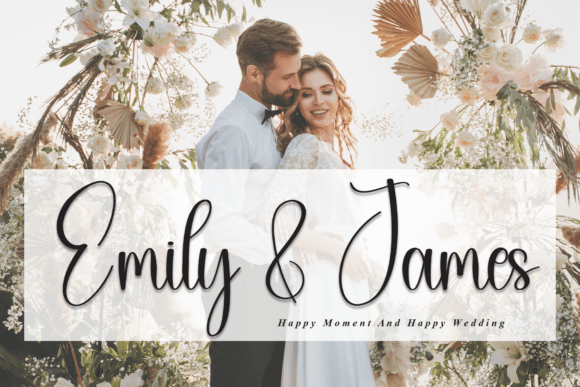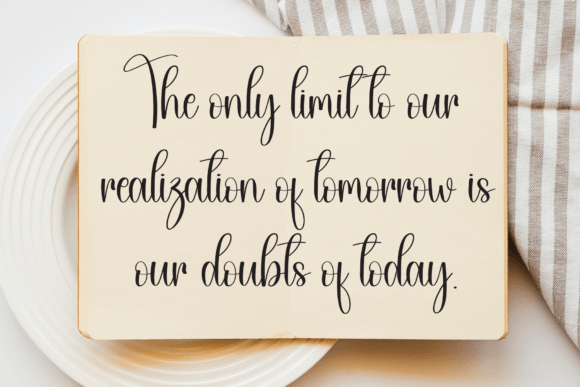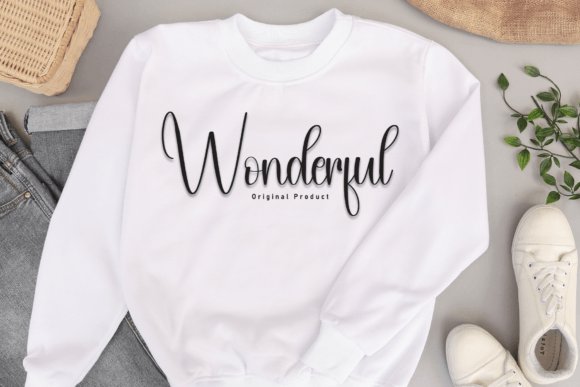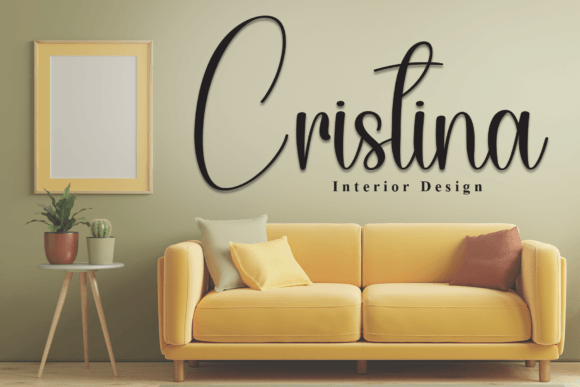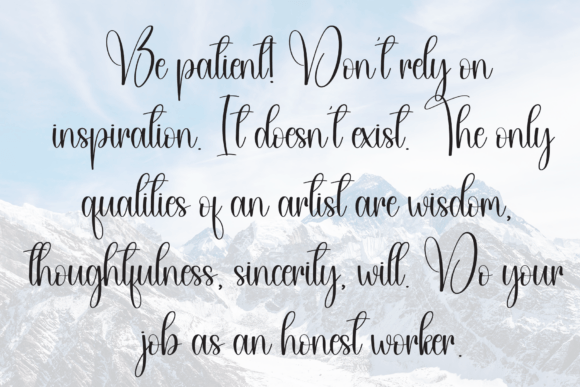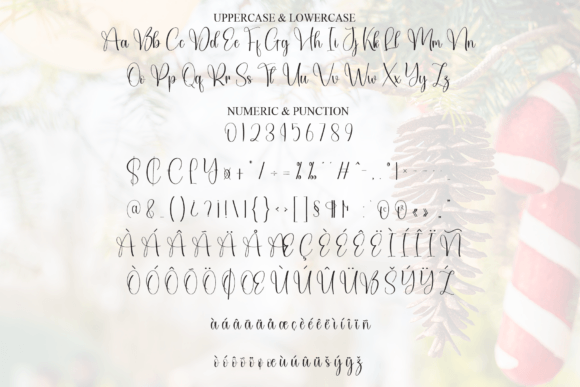
Australia Christmas Font: Add a Warm and Cheerful Touch to Your Holiday Designs
As the holiday season approaches, designers and crafters are on the lookout for the perfect font to add a festive touch to their creations. If you’re looking for a font that embodies the spirit of Christmas, look no further than the Australia Christmas Font. This beautiful, festive script font is perfect for creating holiday designs that are warm, cheerful, and inviting.
What is Australia Christmas Font?
Australia Christmas is a stunning script font that features a joyful, flowing style. The font’s smooth, cursive lettering is perfect for creating holiday designs that feel cozy and intimate. With its elegant, cursive strokes, Australia Christmas Font is ideal for adding a touch of sophistication and whimsy to your holiday creations.
Key Features of Australia Christmas Font
- Festive and Joyful: Australia Christmas Font is designed to capture the spirit of the holiday season. Its joyful, flowing style is perfect for creating designs that feel festive and fun.
- Smooth and Cursive: The font features smooth, cursive lettering that adds a touch of elegance and sophistication to your designs.
- Perfect for Holiday Designs: Australia Christmas Font is ideal for creating holiday designs, including invitations, cards, decorations, and more.
Uses for Australia Christmas Font
Australia Christmas Font is a versatile font that can be used for a wide range of holiday designs. Here are some ideas to get you started:
- Holiday Invitations: Use Australia Christmas Font to create beautiful, festive invitations for your holiday parties and gatherings.
- Christmas Cards: Add a personal touch to your holiday cards with this stunning script font.
- Decorations: Use Australia Christmas Font to create festive decorations, such as garlands, banners, and more.
- Social Media Graphics: Add a touch of holiday cheer to your social media graphics with this festive font.
Tips for Using Australia Christmas Font
Here are some tips for getting the most out of Australia Christmas Font:
- Pair with Other Fonts: Pair Australia Christmas Font with other fonts to create a unique and interesting design.
- Use for Headlines and Titles: Use Australia Christmas Font for headlines and titles to add a touch of festivity and fun.
Australia Christmas Font is a beautiful, festive script font that’s perfect for adding a warm and cheerful touch to your holiday designs. With its smooth, cursive lettering and joyful, flowing style, this font is ideal for creating holiday designs that feel cozy and intimate. Whether you’re a designer or crafter, Australia Christmas Font is a must-have for the holiday season.